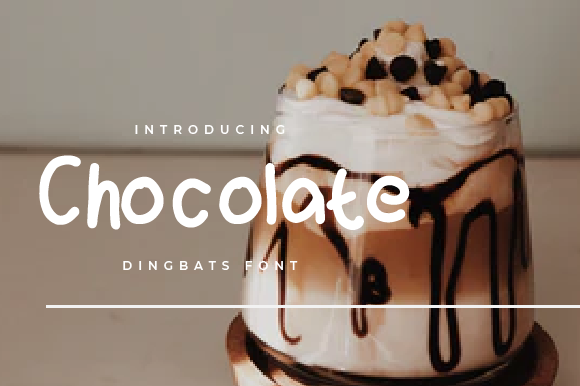
The Sweet Spot: Discovering the Charm of Chocolate Font
I’ll never forget the time I was working on a whimsical craft project, pouring my heart into a handmade card for a friend’s birthday. I had the perfect design in mind, but something was missing – the right font. I scrolled through page after page of Google Fonts, but nothing seemed quite right. That’s when I stumbled upon Chocolate Font, a cute and quirky handwritten font that instantly captured the playful spirit of my project. In this article, I’ll share my love for Chocolate Font, its unique features, and how you can make the most of it in your creative endeavors.
A Personal Review: What I Love About Chocolate Font
So, what makes Chocolate Font so special? Here are a few things that I absolutely adore:
- ✨ Simple and approachable: Chocolate Font has a friendly, down-to-earth feel that’s perfect for creative projects that need a personal touch.
- ✅ Highly legible: Despite its playful nature, Chocolate Font is surprisingly easy to read, making it suitable for both headings and body text.
- 💕 Quirky and charming: This font has a certain je ne sais quoi that adds a touch of whimsy to any design.
While Chocolate Font is an excellent choice for many projects, there are a few minor quirks to be aware of:
- 🤔 Limited formal applications: Due to its playful nature, Chocolate Font might not be the best fit for formal or professional projects that require a more serious tone.
- ⚠️ Limited language support: As with many handwritten fonts, Chocolate Font might not support all languages or special characters.
The Story Behind Chocolate Font
Chocolate Font was designed with the intention of creating a friendly, approachable font that’s perfect for creative projects. While the exact designer is unknown, it’s clear that Chocolate Font was crafted with love and a passion for handmade designs.
| Q: What type of projects is Chocolate Font best suited for? | A: Chocolate Font is perfect for creative projects, such as handmade crafts, invitations, and social media graphics. |